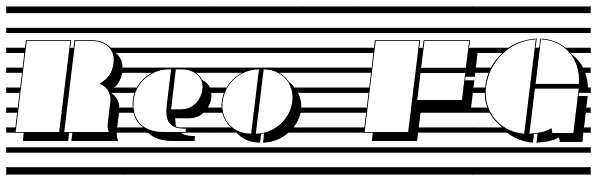
Reo
Inspired by the toothy grins of 1930’s and 40’s era truck grilles and the gleaming, streamlined efficiency of the automat, Reo is a two layered, display font with a decidedly retro look and feel.
Reo FG
Reo FG Font
Reo BG
Reo BG Font